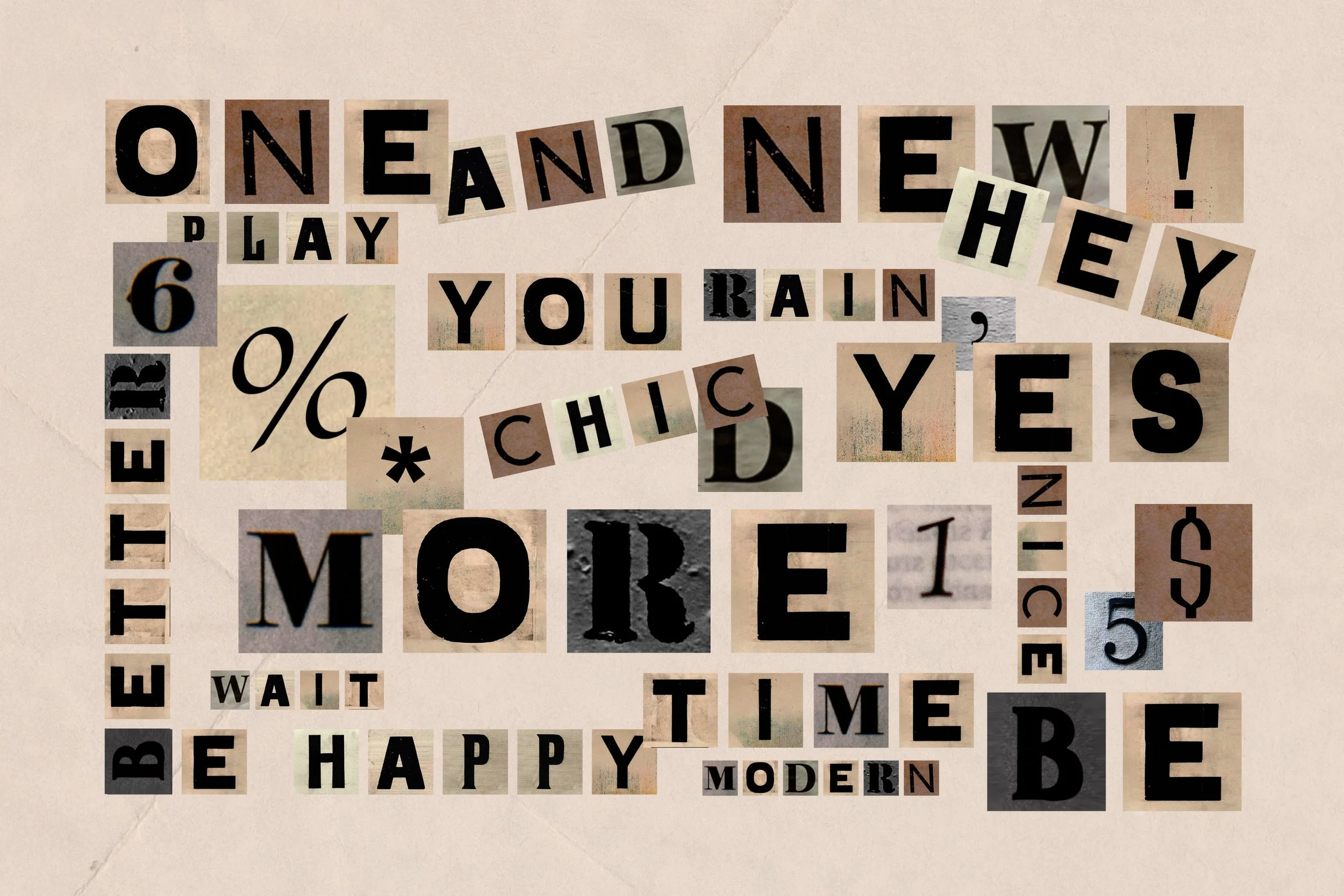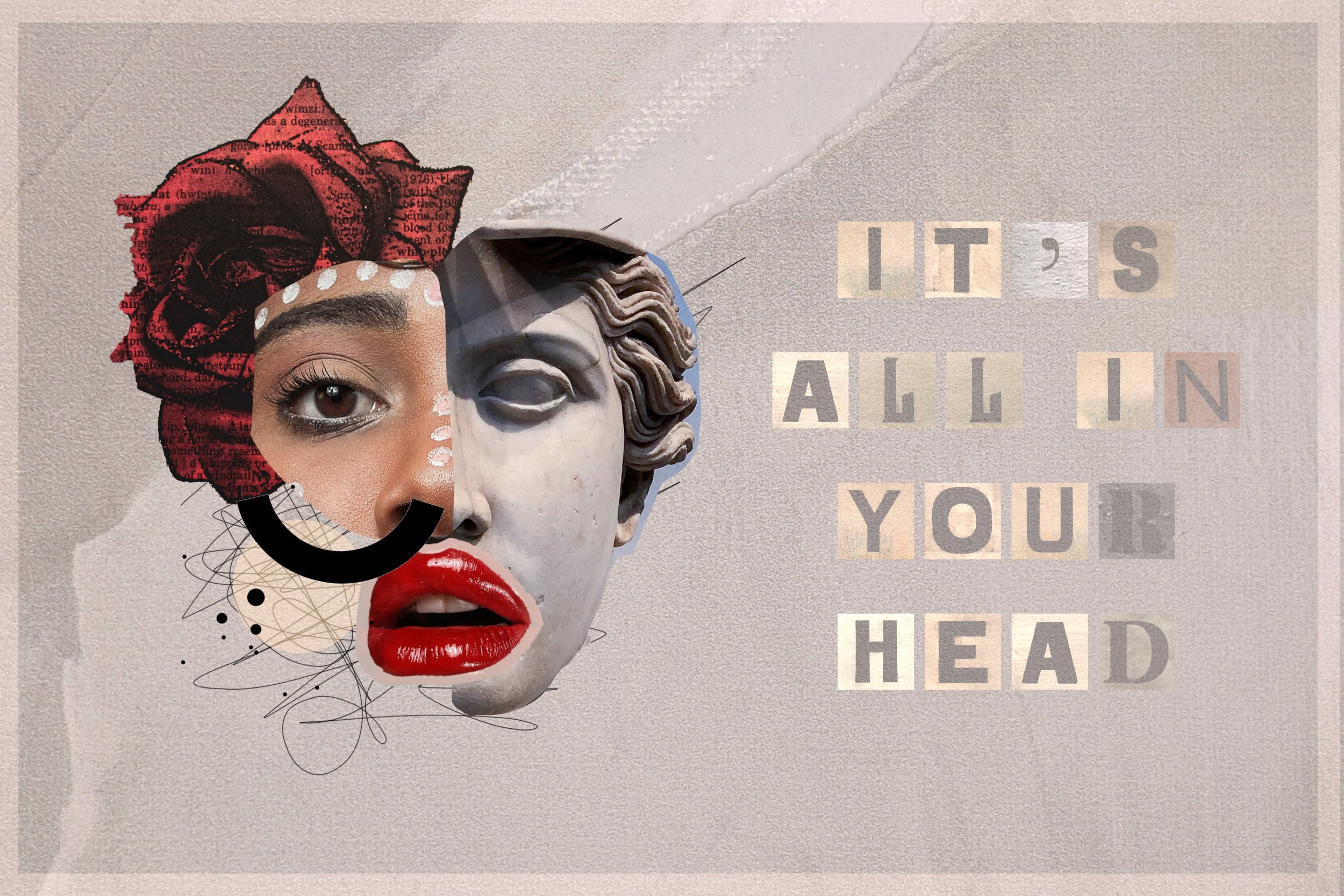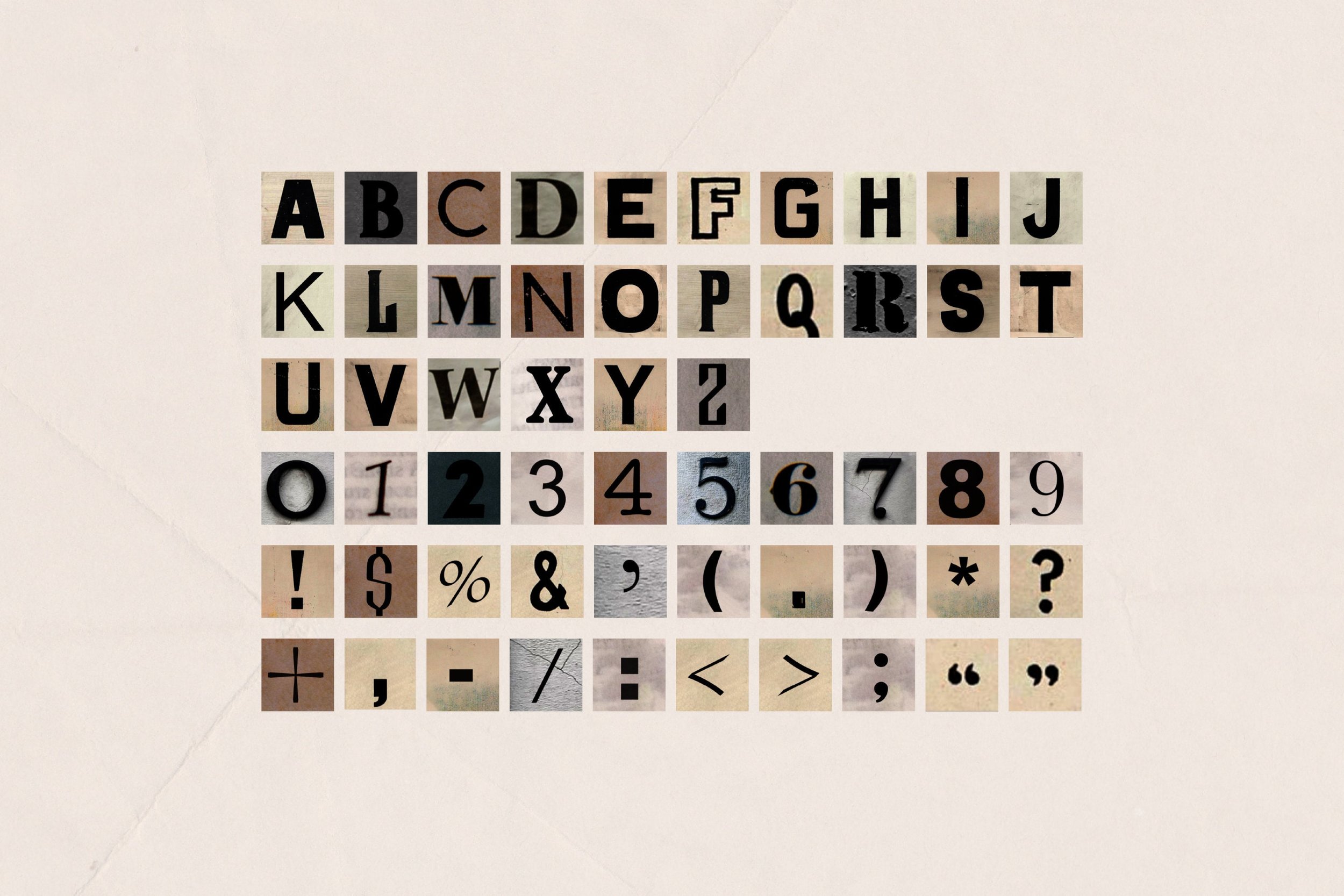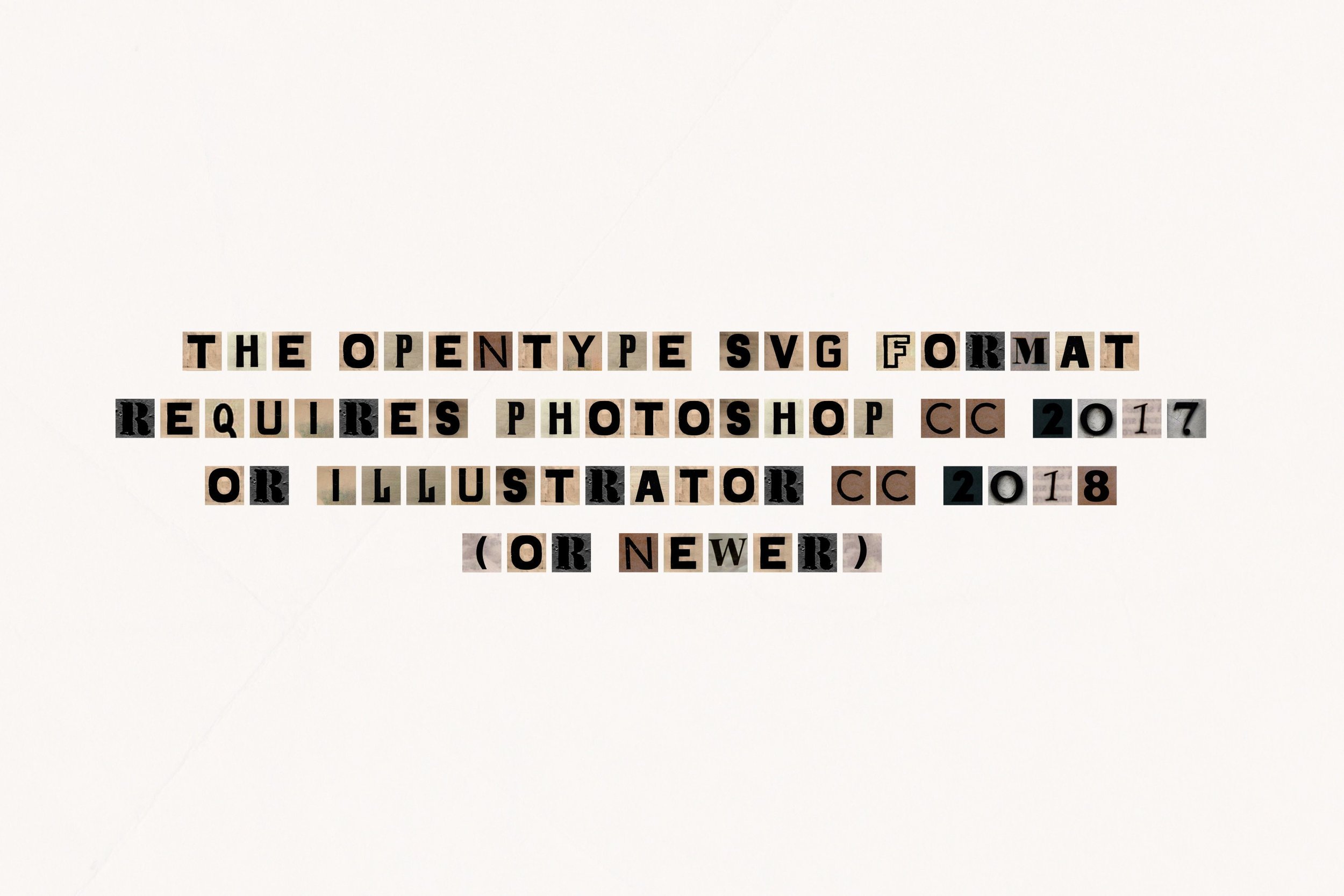
This font was inspired by clippings of old newspaper and collage trends.
Opentype bitmap font that contains uppercase characters, number 0-9 and a range of punctuation (OTF only); Individual .png files
Elvina